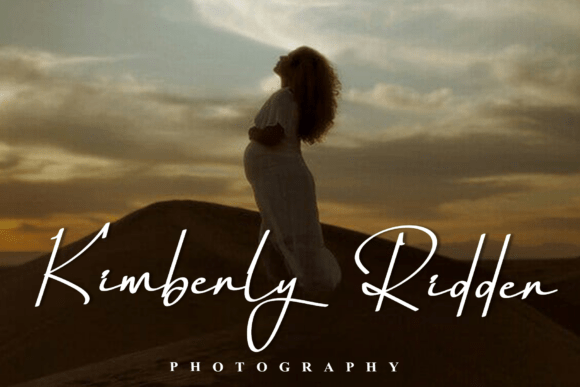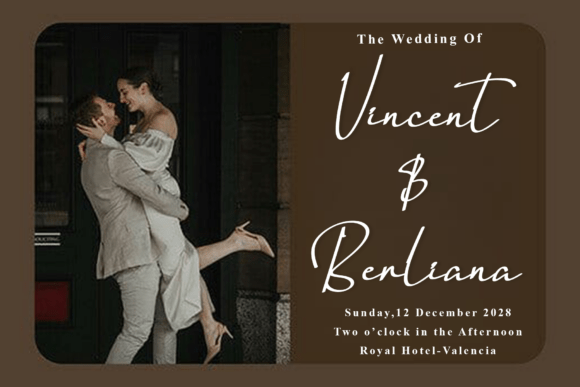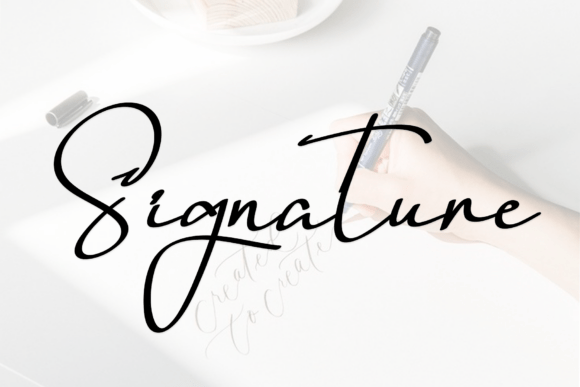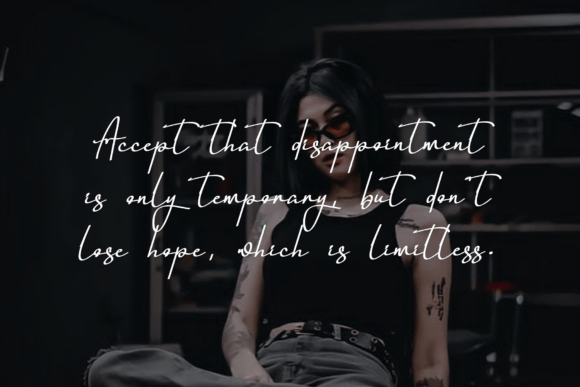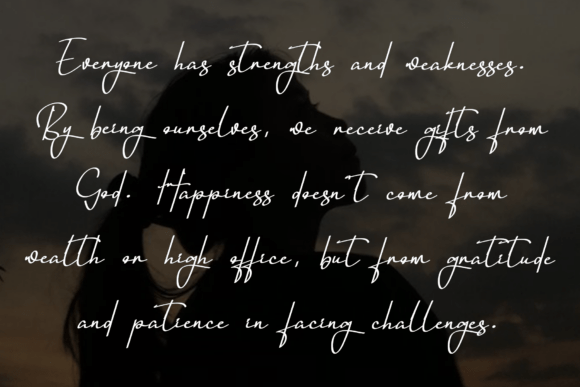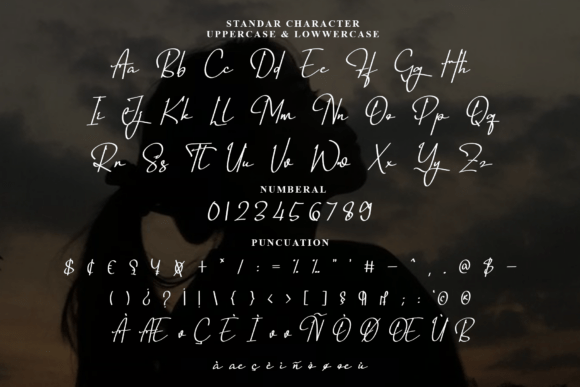
Introducing Elizabeth Font: The Epitome of Elegance and Sophistication
In the world of typography, few fonts manage to convey the essence of luxury and professionalism as effortlessly as Elizabeth Font. This stunningly elegant and highly refined modern handwritten script font is a masterpiece of artistry, designed to deliver a personalized touch that is ideal for high-end branding. With its dramatic contrast between thick downstrokes and delicate hairlines, Elizabeth Font is a true showstopper that is sure to leave a lasting impression.
The Characteristics of Elizabeth Font
So, what sets Elizabeth Font apart from other fonts in its class? The answer lies in its exquisite design, which is characterized by:
- Dramatic contrast between thick downstrokes and delicate hairlines: This distinctive feature gives Elizabeth Font its unique flair, adding a level of sophistication and elegance that is hard to match.
- Beautifully integrated ligatures and swashes: These carefully crafted elements enhance the font’s refinement, creating a seamless and luxurious feel that is perfect for high-end branding.
The Artistry of Elizabeth Font
Elizabeth Font is more than just a font – it’s a work of art. Its design is a testament to the skill and craftsmanship of a professional calligrapher, with each letter carefully crafted to convey a sense of elegance and refinement. The font’s flowing lines and curves are a joy to behold, making it perfect for designers and crafters who want to add a touch of sophistication to their projects.
Why Choose Elizabeth Font?
So, why should you choose Elizabeth Font for your next project? Here are just a few compelling reasons:
- Luxurious and personalized touch: Elizabeth Font is designed to deliver a high-end feel that is perfect for luxury brands, high-end products, and exclusive services.
- Professional artistry: With its exquisite design and attention to detail, Elizabeth Font is the perfect choice for designers and crafters who want to create professional-looking projects.
- Versatility: Whether you’re working on a branding project, a website, or a marketing campaign, Elizabeth Font is a versatile choice that can be used in a variety of contexts.
Using Elizabeth Font in Your Projects
So, how can you use Elizabeth Font in your projects? Here are a few ideas to get you started:
- Branding and logos: Elizabeth Font is perfect for creating luxurious and sophisticated brand identities that make a lasting impression.
- Web design: Use Elizabeth Font to add a touch of elegance to your website, creating a seamless and refined user experience.
- Marketing and advertising: Elizabeth Font is a great choice for marketing and advertising campaigns, adding a level of sophistication and professionalism to your messaging.
In conclusion, Elizabeth Font is a truly exceptional font that embodies the essence of elegance and sophistication. With its exquisite design, professional artistry, and versatility, it’s the perfect choice for designers and crafters who want to create luxurious and refined projects. Whether you’re working on a branding project, a website, or a marketing campaign, Elizabeth Font is sure to make a lasting impression.